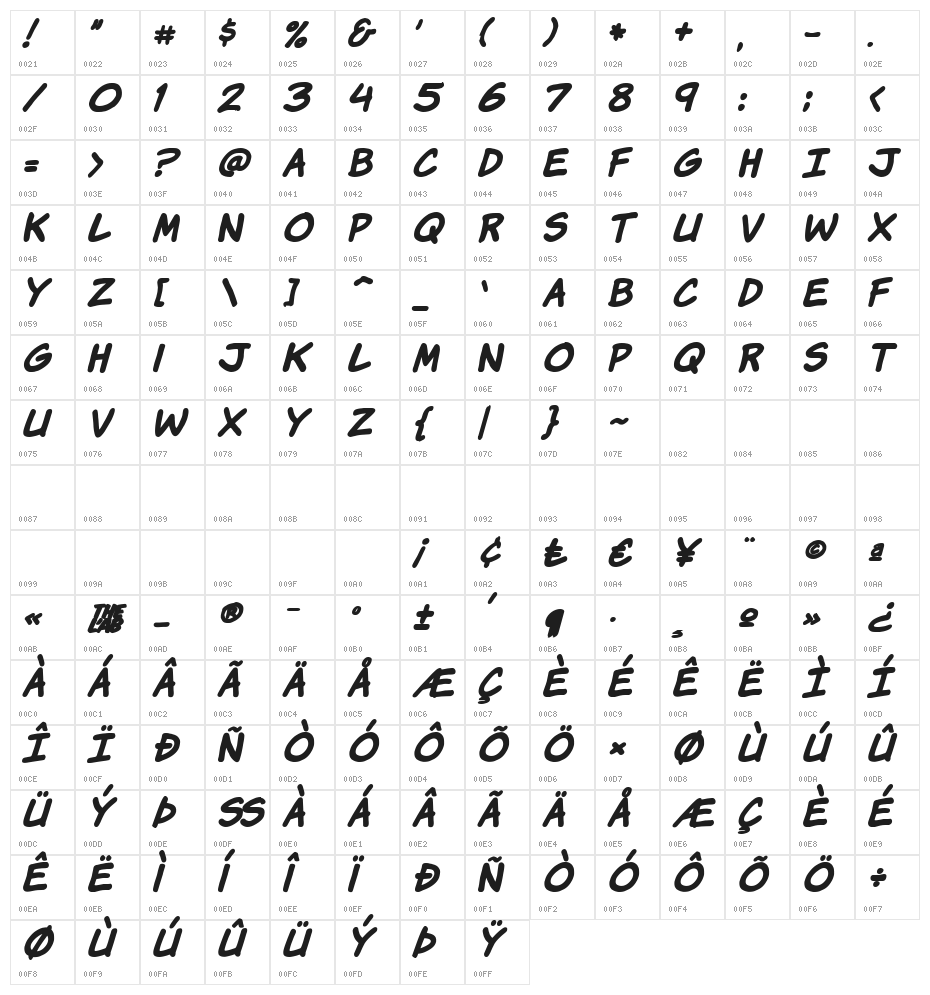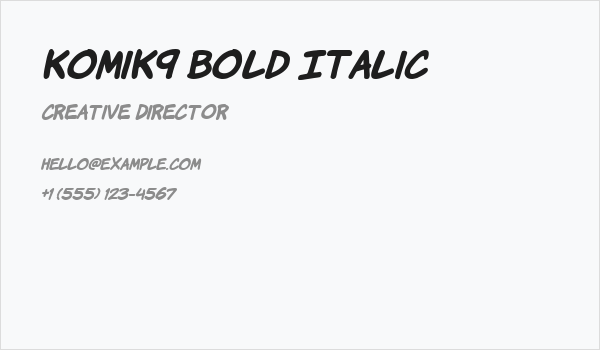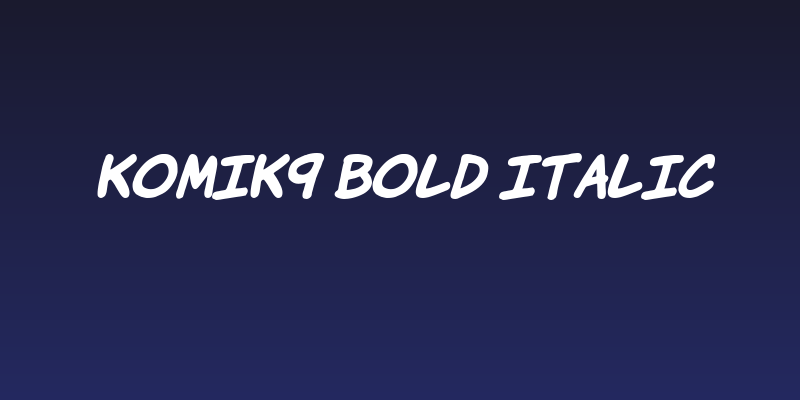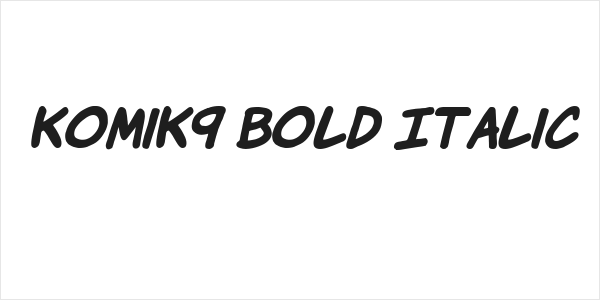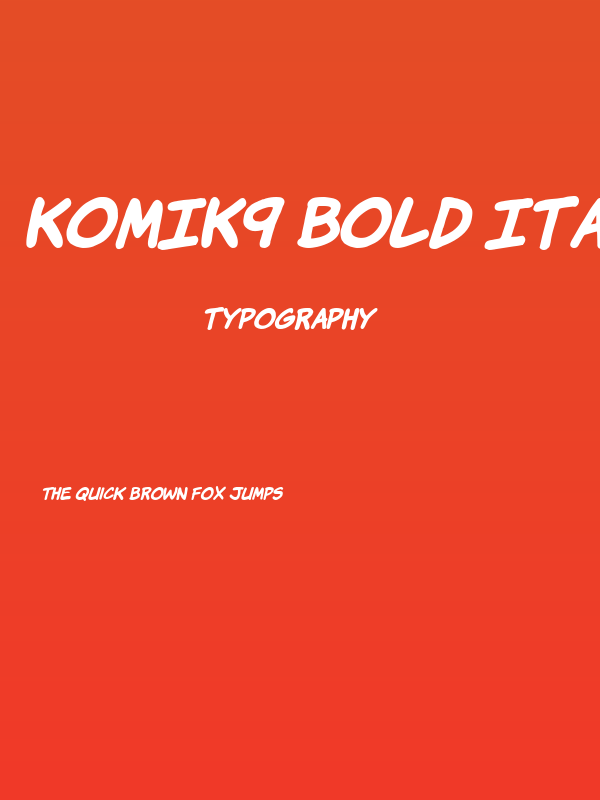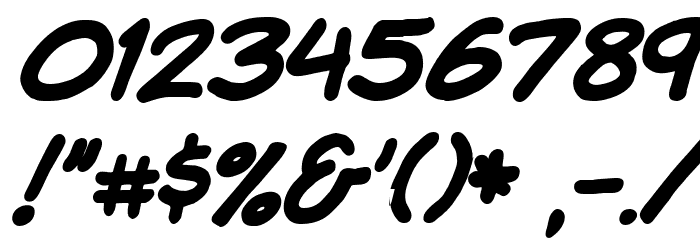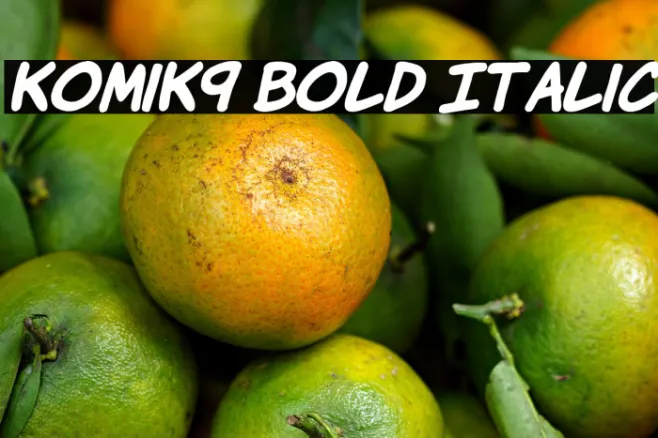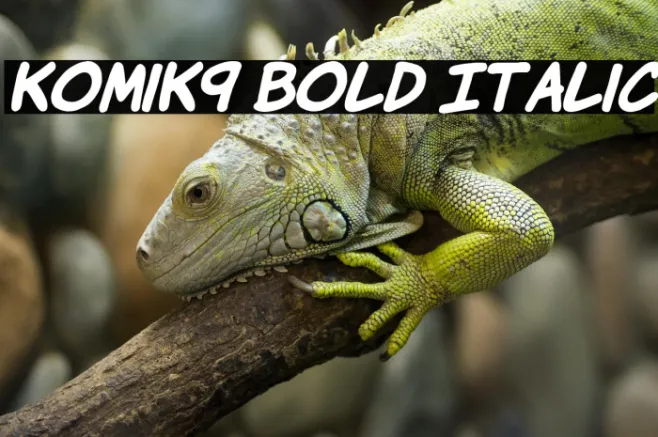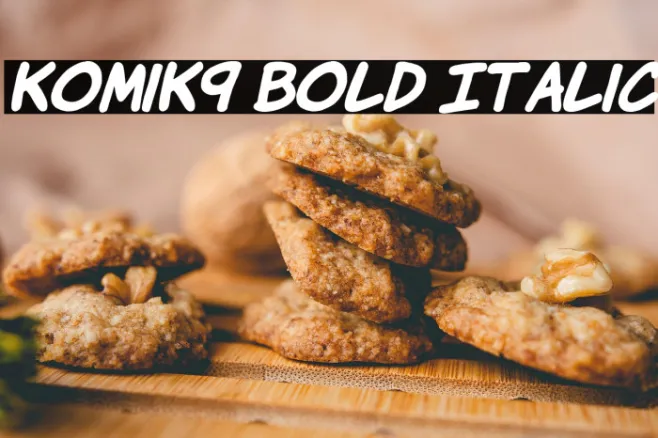
KomiK9 Bold Italic Font
KomiK9 Bold Italic Description
This font exhibits a playful and dynamic style, characterized by its bold and italicized letterforms. The strokes are thick and rounded, giving it a friendly and approachable appearance. The slanted orientation adds a sense of movement and energy, making it suitable for informal and fun contexts. The uppercase and lowercase letters maintain a consistent style, with smooth curves and a slightly exaggerated width. The numbers and special characters follow the same design principles, ensuring uniformity across all glyphs. This font's overall aesthetic is reminiscent of comic book lettering, making it ideal for projects that require a lively and engaging typeface.
| Overall Style | Playful, Comic |
| Proposed Projects | Ideal for comic books, children's books, playful branding, and informal posters. |